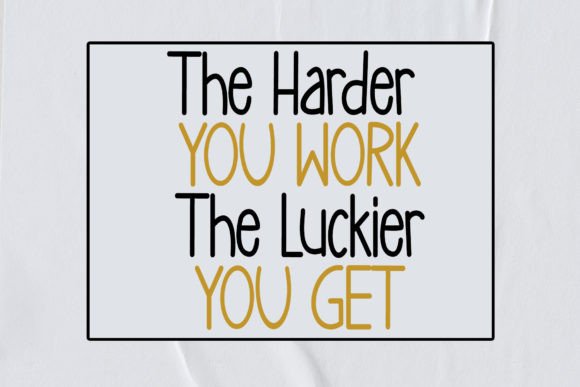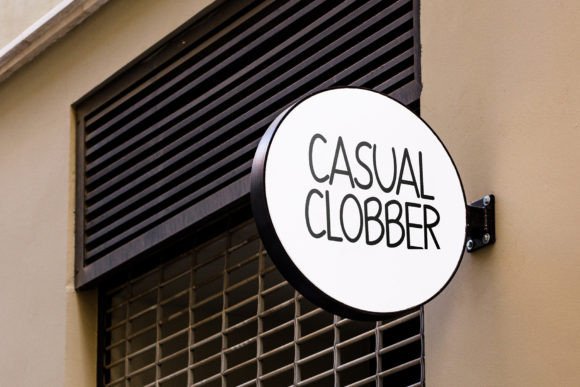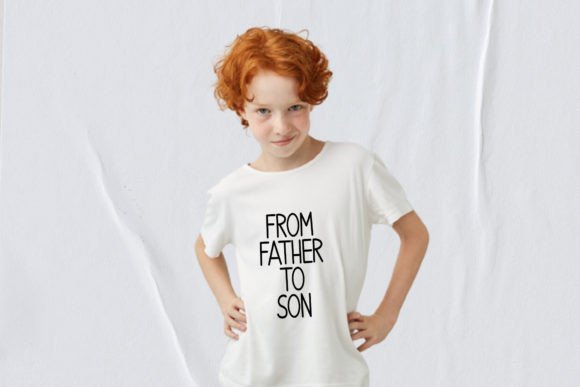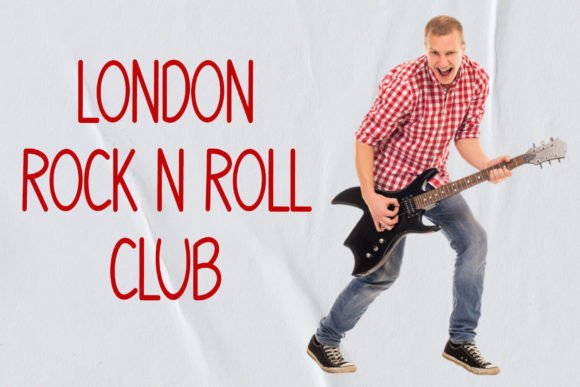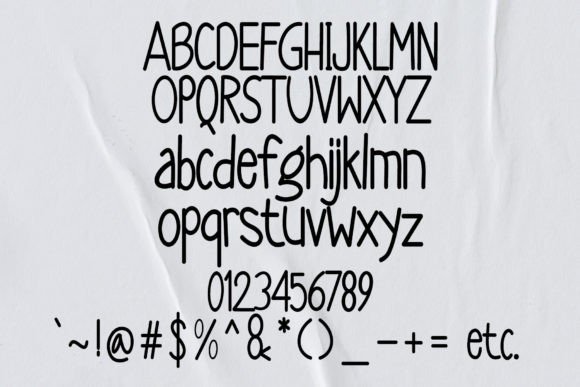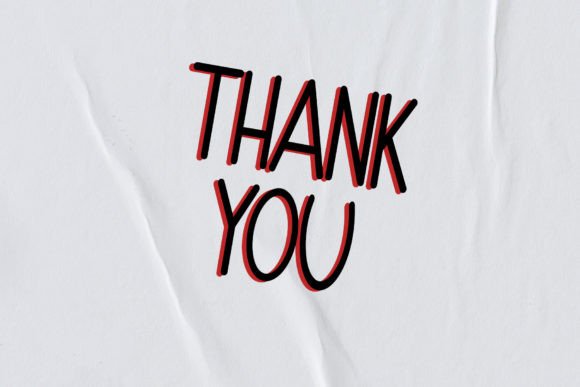
Introduction to Overunder Font
You’ve spent hours working on your latest creative project, pouring your heart and soul into every detail. But, just as you’re about to finalize your design, something’s missing – a spark, a touch of personality, a unique flair that sets it apart from the rest. That’s where the Overunder Font comes in – a fun and casual display font that’s ready to elevate your creations to the next level.
This versatile design resource is more than just a pretty face; it’s a high-quality tool that can add a professional touch to any project, whether you’re working on a branding campaign, a social media graphic, or a blog post. And the best part? It’s available for free download, so you can start experimenting with it right away.
With its transparent background and endless customization options, the Overunder Font is the perfect addition to any designer’s toolkit. So why settle for ordinary when you can have extraordinary? Download the Overunder Font today and discover a whole new world of creative possibilities.
Key Features of Overunder Font
- High-quality font design suitable for various creative projects, including graphic design and digital art.
- Transparent background, allowing for seamless integration into various design elements and backgrounds.
- Includes multiple font styles, including bold, italic, and regular, to cater to diverse design needs.
- Designed with high resolution (300 DPI) for optimal clarity and readability in various sizes and applications.
- Perfect for designers seeking a unique and stylish font to elevate their creative project.
Honest Review: Overunder Font
I recently stumbled upon the Overunder Font and was impressed by its versatility. This high-quality font is perfect for any creative project that requires a unique touch. One of the standout features is its transparent background, making it easy to work with and perfect for graphic designers who need to layer their design elements.
- ✨ Unique and modern design aesthetic
- ✨ Easy to read and use in various contexts
- ✨ Compatible with various design software
- ⚠️ Limited character set and font weights
- ⚠️ Not suitable for large-scale or professional printing
- ⚠️ May require additional design work for optimal results
Overall, the Overunder Font is a solid design resource for personal projects or small-scale designs. While it may not be the most comprehensive font, its unique design and transparent background make it a great addition to any designer’s toolkit. With some careful planning and design work, the Overunder Font can be a valuable asset for any creative project.
Tips for Getting the Most Out of the Overunder Font
Experiment with different font sizes and styles to achieve a unique look. Use the transparent background feature to create layered designs. Combine the Overunder Font with other design elements to create a visually appealing design.
The Overunder Font is ideal for use in creative projects, such as logos, branding materials, and marketing materials. It’s also a great resource for designers who want to create high-quality text elements with a transparent background. The font is available for free download, making it a valuable design resource for designers of all levels.
Is the Overunder Font suitable for large-scale designs?
Yes, the Overunder Font is designed to be highly legible, making it perfect for large-scale designs, such as signage, billboards, and presentations. Its high-quality design ensures that it remains clear and readable even at high resolutions, making it an excellent choice for your next creative project.